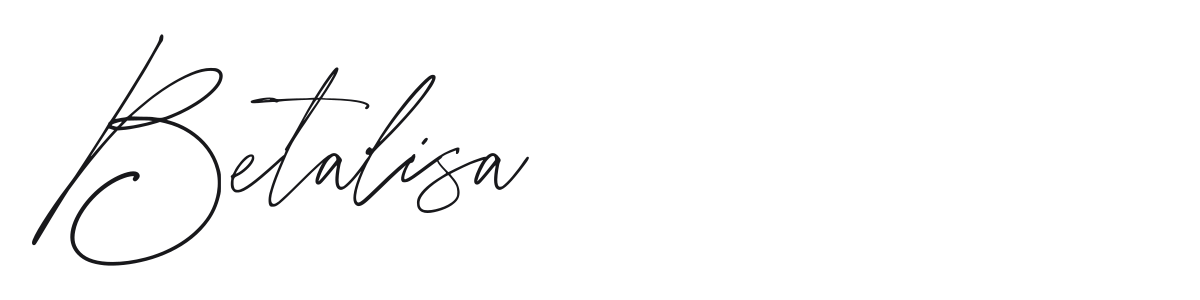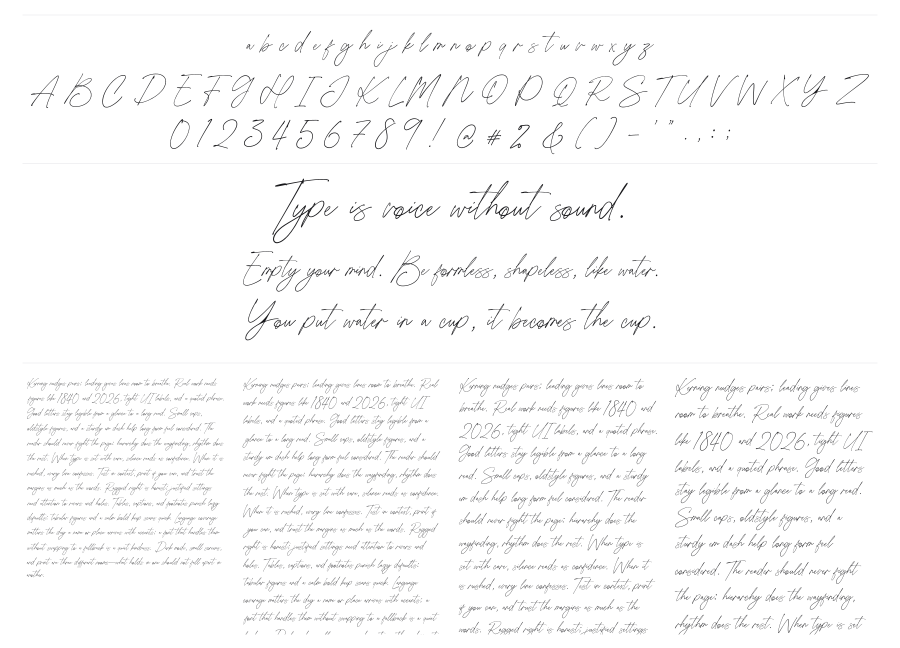
Betalisa
Betalisa is a thin casual cursive with a natural, free-flowing handwriting feel. Long sweeping strokes and loose connections between letters give it an effortless, spontaneous quality that works well at large sizes in branding and editorial contexts. The hairline weight keeps everything airy and light without feeling fragile.